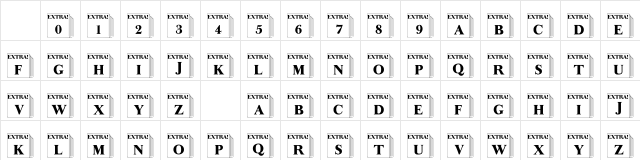
Complete 101! EXTRA! Regular glyph index. Displaying only characters natively supported by 101! EXTRA! Regular font.
101! EXTRA! is a composed and adaptable typeface that performs quietly and consistently across a wide range of design contexts.